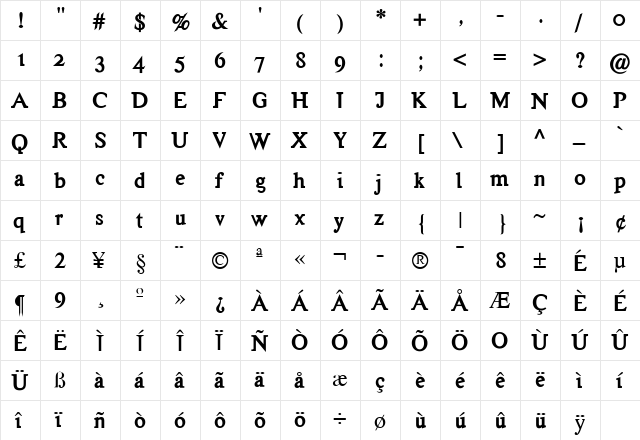
HardTimes Bold
| Foundry | This typeface was designed by Jeffery Keedy for CIPHER |
Design Context for HardTimes Typeface
HardTimes offers clean, dependable letterforms without strong stylistic allegiance, making it a practical choice for designers who need flexibility. Its bold stroke weight gives it real presence on the page.